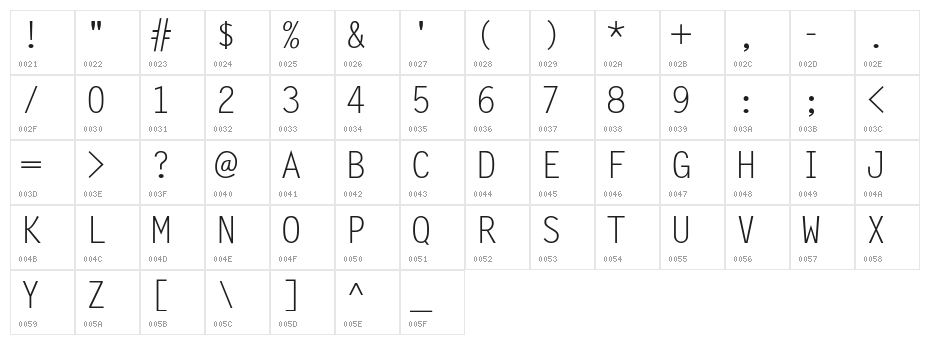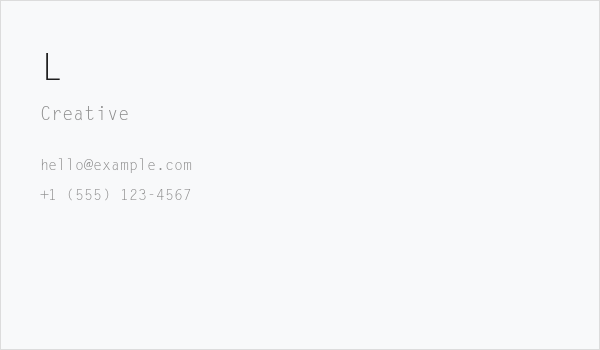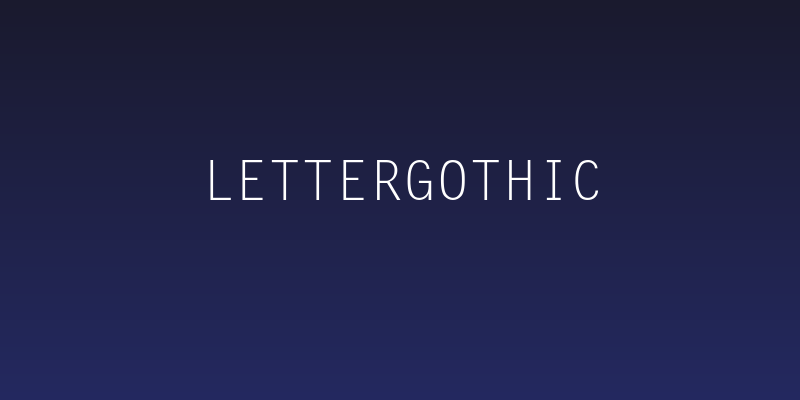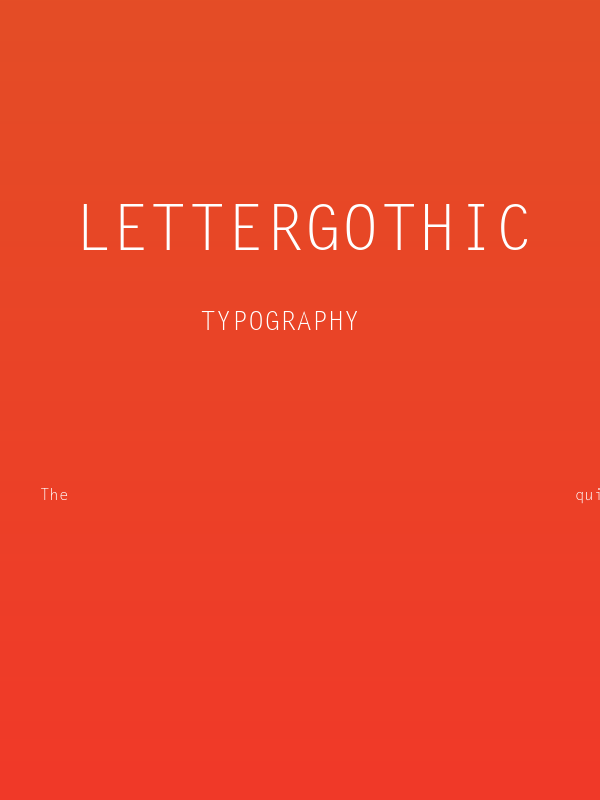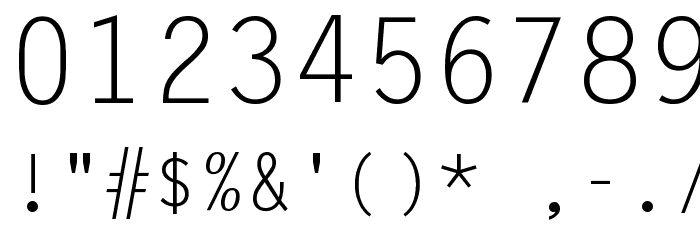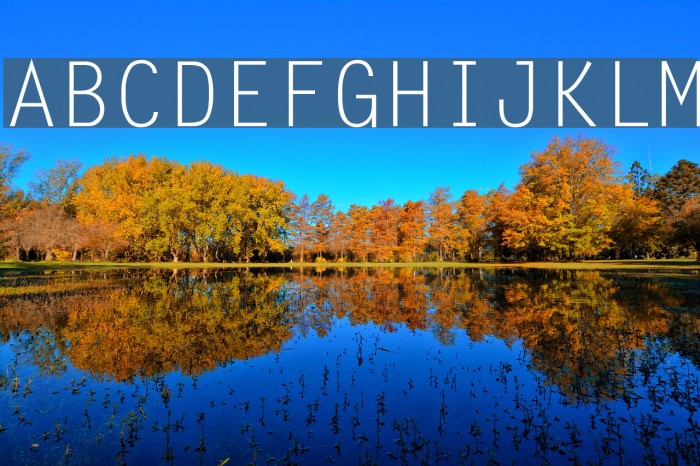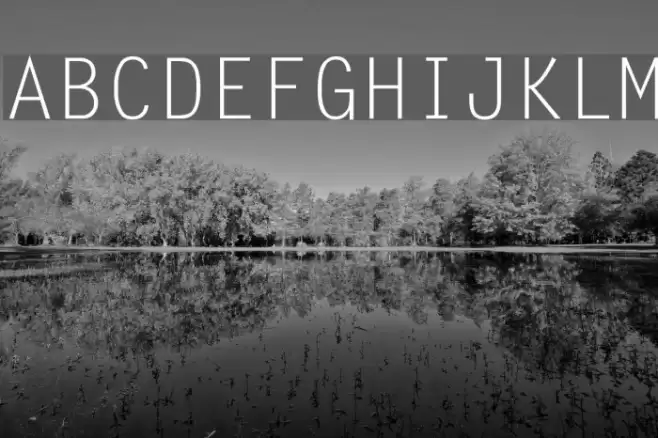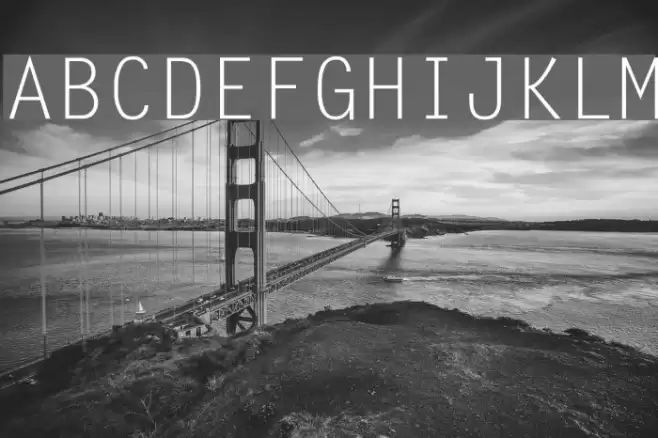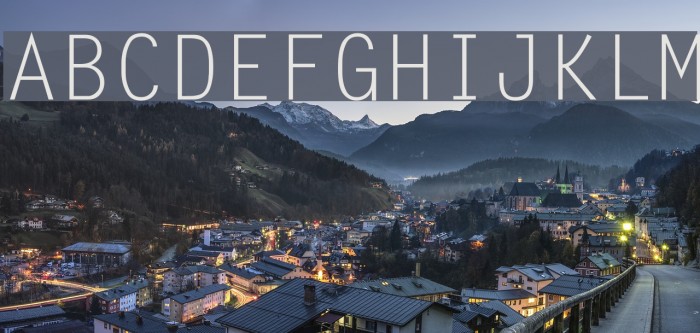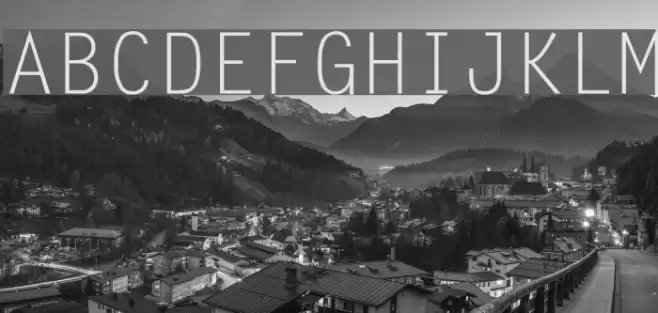
LetterGothic Font
| Caz de utilizare | Coding, Technical documentation, Digital interfaces |
| Proiecte propuse | Ideal for coding environments, technical documentation, digital interfaces, and minimalist design projects. |